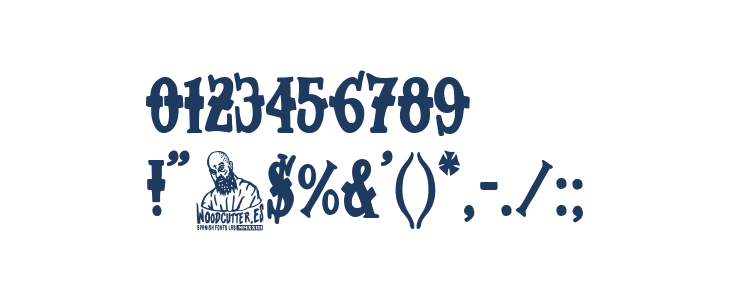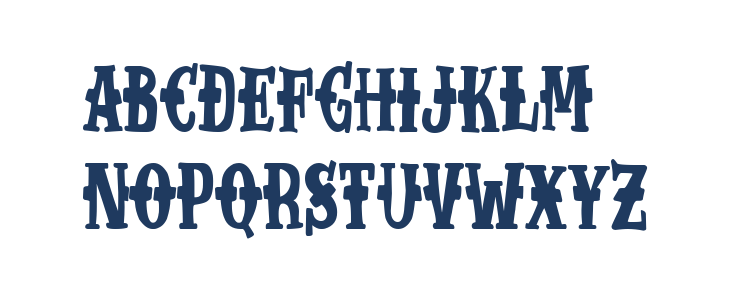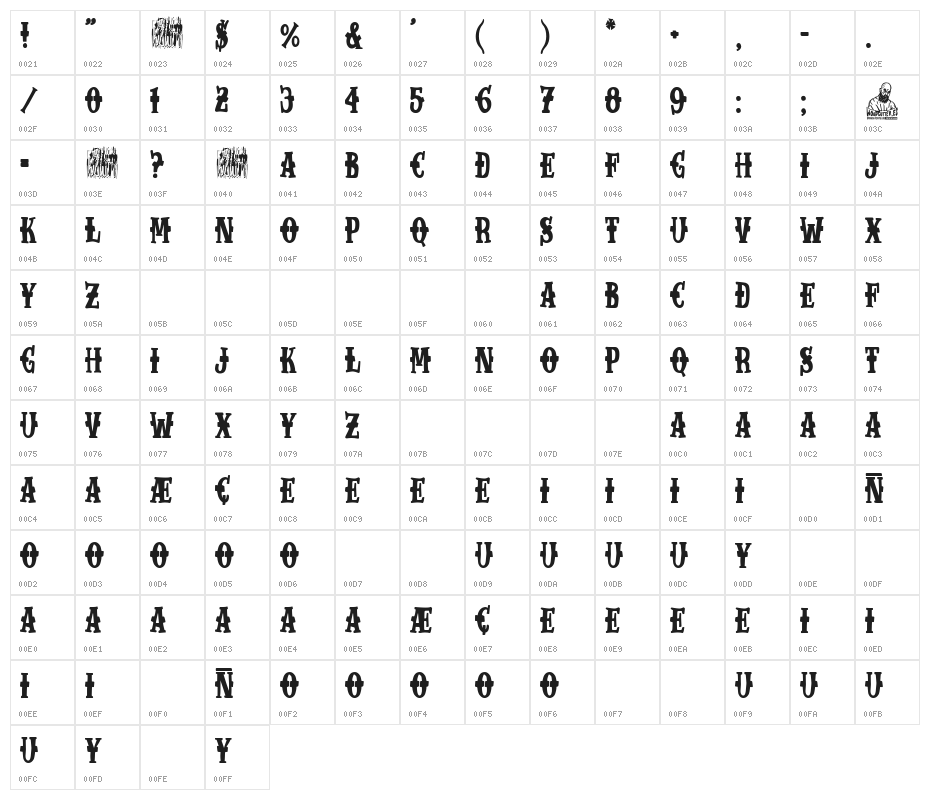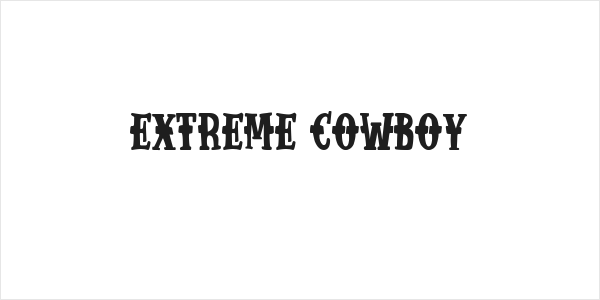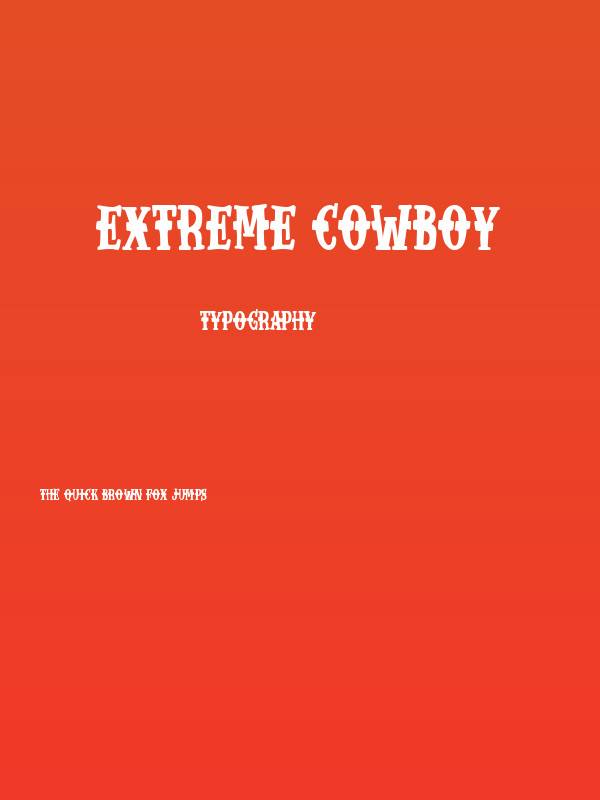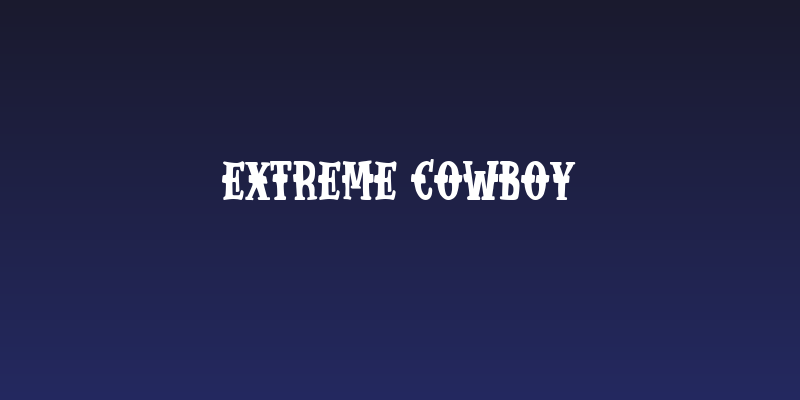
Extreme Cowboy Font
Extreme Cowboy Description
A bold, decorative display font with pronounced slab serifs and playful, exaggerated letterforms reminiscent of Western or cowboy themes. The characters have thick strokes, high contrast, and unique ornamental elements, giving a rugged and adventurous appearance.
| Overall Style | Decorative, Western, Vintage |
| Use Case | Headlines, Logos, Posters, Signage |
| Proposed Projects | Posters, event flyers, themed branding, signage, party invitations, logos for Western or cowboy-related businesses. |